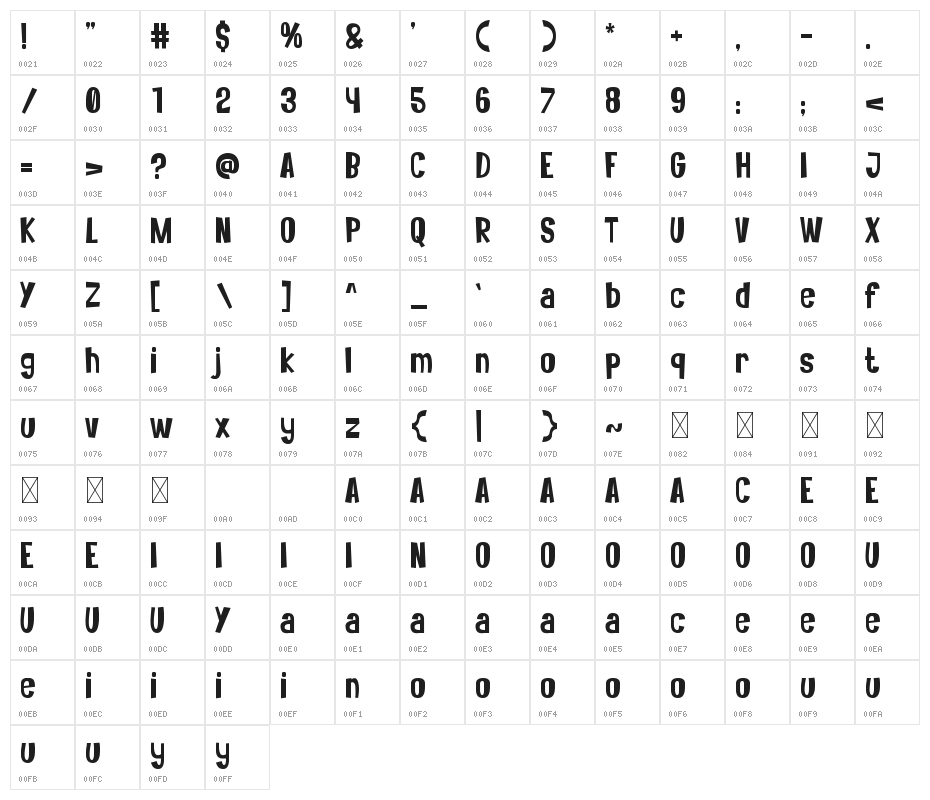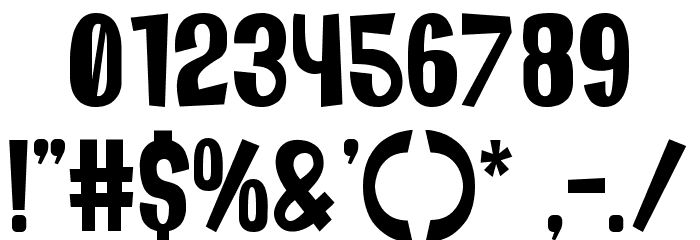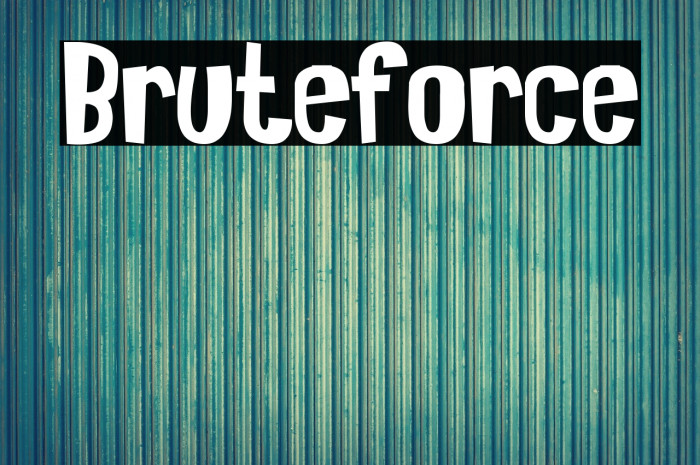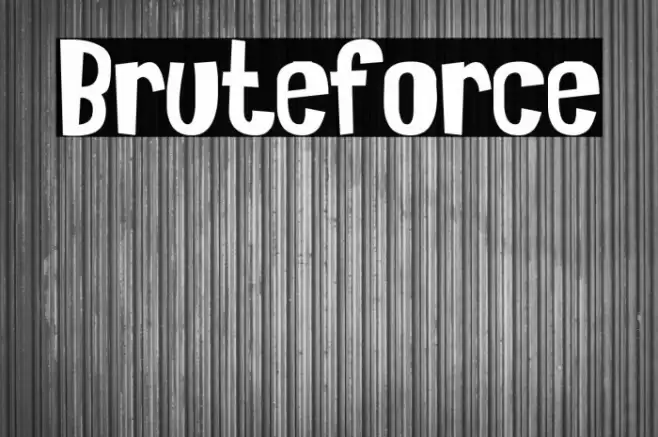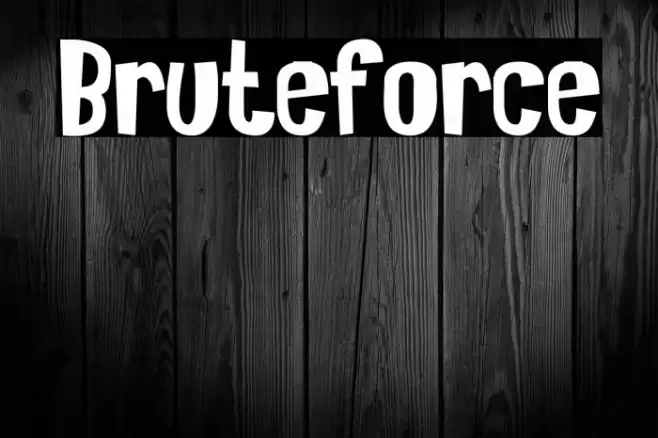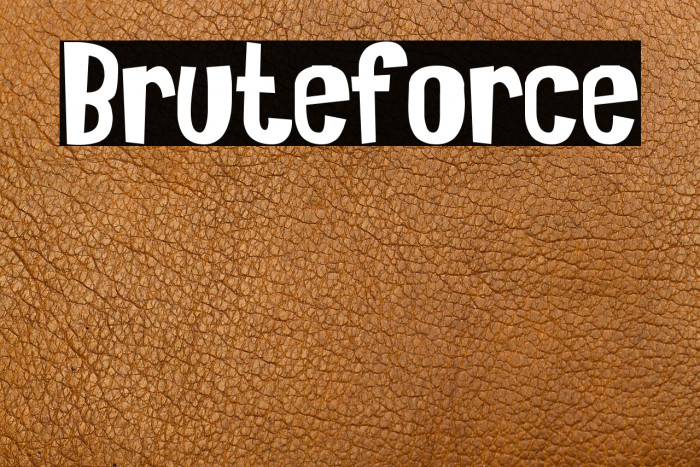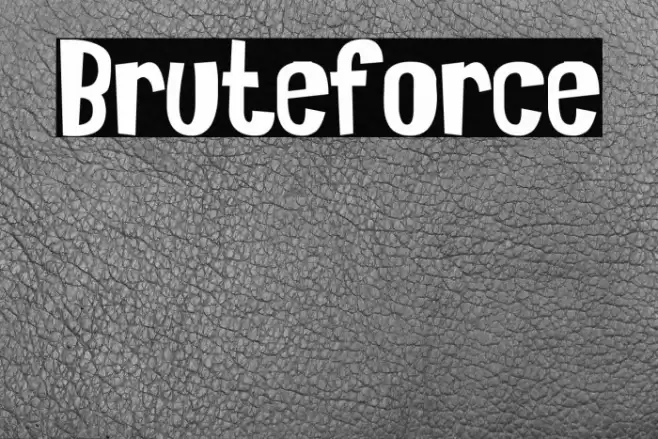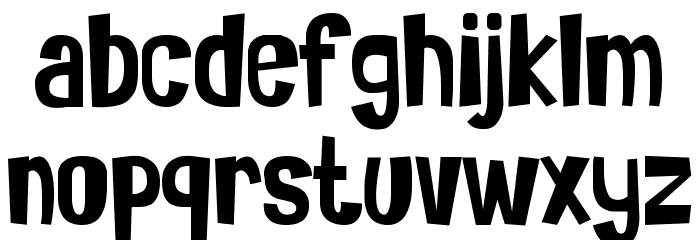
Bruteforce Font
| Stil general | Playful, Whimsical |
| Proiecte propuse | Ideal for children's books, playful branding, posters, and creative advertising. |